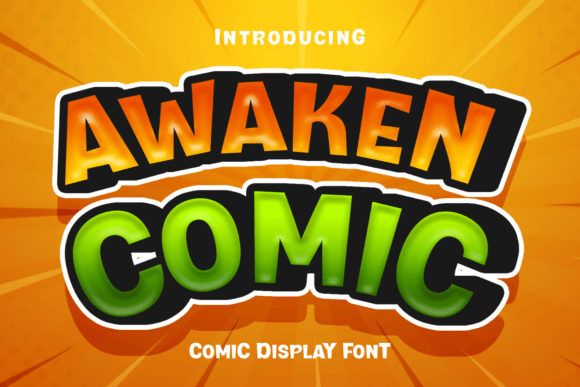
Discover the Power of Awaken Comic Font
Remember the excitement of creating a comic strip as a child, bringing your imagination to life with colorful characters and engaging storylines? That same sense of wonder and creativity is what makes Awaken Comic Font a dream come true for designers.
This versatile font is designed to meet the diverse needs of various design categories, from display and craft fonts to playful animation and kids’ fonts. With its simplicity and flair, Awaken Comic Font effortlessly integrates with school projects, greeting cards, and even social media posts. Its beautiful strokes and trendy appeal make it the perfect choice for branding, apparel, quotes, and T-shirt designs, as well as book covers, magazines, or packaging designs.
Awaken Comic Font Key Features
- Font Style: A modern comic sans serif font designed for digital and print use.
- Unique Characteristics: Features a bold, playful, and expressive design, making it ideal for comic books, graphic novels, and children’s books.
Awaken Comic Font Review
When I first laid eyes on Awaken Comic Font, I was immediately drawn to its unique and quirky vibe. ✨ The font’s hand-drawn feel and bold lines give it a playful, energetic quality that’s perfect for comic books, graphic novels, or any project that needs a bit of whimsy.
One of the things that really sets Awaken apart is its excellent readability. ✨ Even at smaller font sizes, the text remains clear and easy to follow, making it a great choice for long-form content. The font also comes in a range of weights, from Light to Bold, allowing you to customize the look and feel to suit your needs.
However, I did notice a few limitations. ⚠️ For one, the font can be a bit inconsistent in its spacing, which can affect the overall layout of your text. Additionally, some of the characters may not be as well-designed as others, which can be distracting in certain contexts.
Overall, I think Awaken Comic Font is a great choice for anyone looking to add a bit of personality to their project. With its unique style and excellent readability, it’s a versatile font that’s sure to impress. Just be aware of its limitations, and use it in contexts where its quirks won’t get in the way.
- Unique, hand-drawn style
- Excellent readability
- Range of weights (Light to Bold)
- May be inconsistent in spacing
- Some characters may not be well-designed
Alternatives to Awaken Comic Font
Great Vibes is a beautiful, handwritten font ideal for creative projects, such as book covers, advertisements, and social media graphics. It features a casual, relaxed feel that can add a touch of personality to your designs.
Compared to Awaken Comic Font, Great Vibes has a more organic, handwritten feel, making it suitable for projects where you want to convey a sense of creativity and individuality. However, it may not be as versatile as Awaken Comic Font, which has a more balanced and modern design.
Pacifico is a elegant, cursive font perfect for designs that require a touch of sophistication, such as wedding invitations, luxury branding, and high-end advertising. It features a flowing, handwritten feel that can add a sense of refinement to your projects.
Compared to Awaken Comic Font, Pacifico has a more refined and luxurious feel, making it suitable for projects where you want to convey a sense of high-end quality. However, it may not be as playful or casual as Awaken Comic Font, which has a more modern and versatile design.